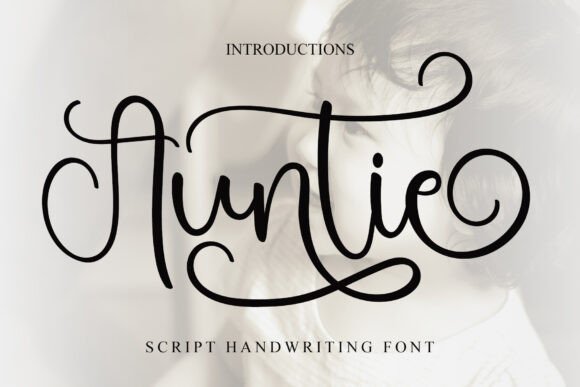
Auntie Font: Elevate Your Designs with Elegance and Sophistication
In the world of typography, fonts play a crucial role in conveying the tone and personality of a design. Among the numerous fonts available, Auntie Font stands out for its unique blend of elegance and modernity. This beautifully crafted handwriting font seamlessly merges sophistication with an artistic touch, making it an ideal choice for designers seeking to add a touch of class and personality to their creations.
Auntie Font: A Beautifully Crafted Handwriting Font
Auntie Font is a stunning example of handwriting typography that exudes elegance and refinement. Its flowing strokes and well-balanced curves create a sophisticated yet approachable feel, perfect for a wide range of design applications. Whether you’re working on a branding project, wedding invitation, or social media graphics, Auntie Font is sure to make a lasting impression.
The font’s unique charm lies in its ability to strike a balance between classic and modern elements. The elegant strokes and cursive flair evoke a sense of nostalgia, while the modern twist adds a fresh and artistic touch. This blend of old and new makes Auntie Font an excellent choice for designers looking to create unique and captivating designs.
Perfect for a Variety of Design Applications
Auntie Font’s versatility makes it suitable for a wide range of design projects. Here are some of the ways you can use this beautiful font:
- Branding and Logo Design: Create a lasting impression with Auntie Font’s elegant and sophisticated feel. Use it to craft logos, business cards, and letterheads that exude refinement and professionalism.
- Wedding and Event Invitations: Add a touch of elegance to your wedding or event invitations with Auntie Font. Its flowing strokes and cursive flair make it perfect for formal and informal events.
- Social Media Graphics: Elevate your social media presence with captivating graphics featuring Auntie Font. Use it to create stunning Instagram posts, Facebook graphics, and Twitter headers.
- Packaging and Product Design: Make your products stand out with Auntie Font’s unique and artistic touch. Use it to create eye-catching packaging, labels, and product inserts.
Typography Tips for Using Auntie Font
To get the most out of Auntie Font, here are some typography tips to keep in mind:
- Pair it with a sans-serif font: Combine Auntie Font with a clean sans-serif font to create a beautiful contrast and add visual interest to your design.
- Experiment with font sizes: Play with different font sizes to create a hierarchy of information and add emphasis to specific elements.
- Use it sparingly: While Auntie Font is elegant and sophisticated, using it sparingly can make it more effective. Use it for headings or key messages to create a lasting impression.
Inspiration and Examples
To get a better sense of how Auntie Font can be used in different design applications, here are some inspiring examples:
In conclusion, Auntie Font is a beautifully crafted handwriting font that blends elegance with a modern, artistic touch. Its flowing strokes and well-balanced curves create a sophisticated yet approachable feel, making it the perfect font choice for designers seeking to add a touch of class and personality to their designs. With its versatility and range of applications, Auntie Font is sure to become a staple in your typography collection.